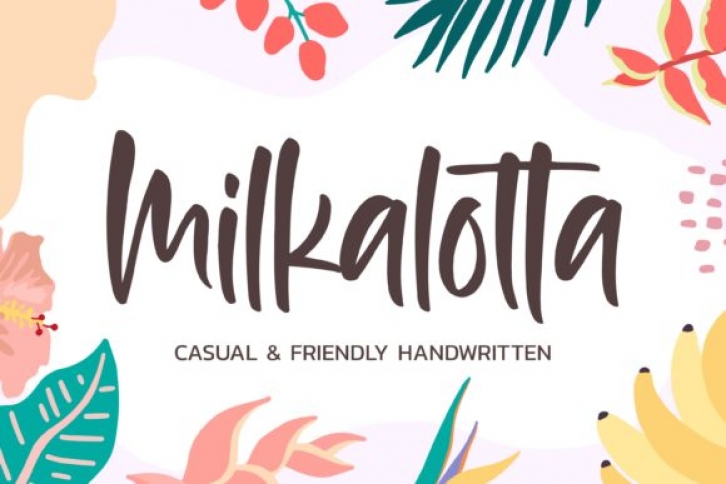
Milkalotta is a casual and beautiful handwritten font. Fall in love with its incredibly versatile style and use it to create gorgeous wedding invitations, beautiful stationary art, eye-catching social media posts, and much more!